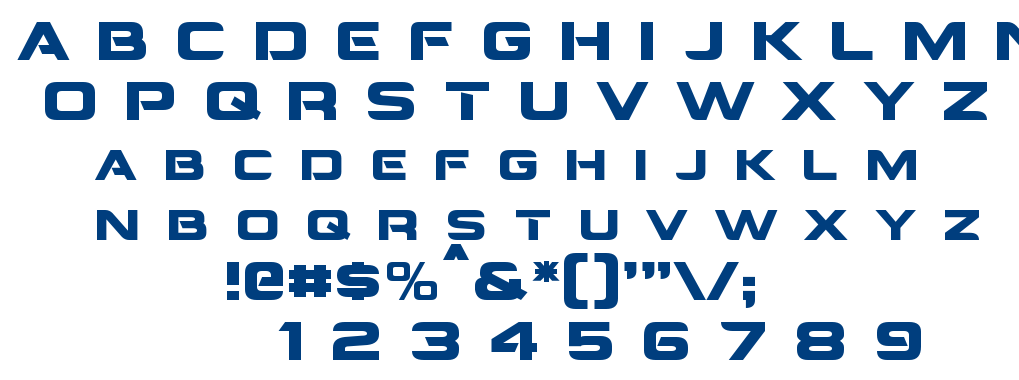
Tiny Small Medium Large Montalban font Neale Davidson Website Montalban.ttf Download 1293 downloads Freeware Category: Techno » Sci-fi TTF – Montalban Based on the title credits from “Star Trek II: The Wrath of Khan” Includes Euro and accent characters Character Map specimen sheet